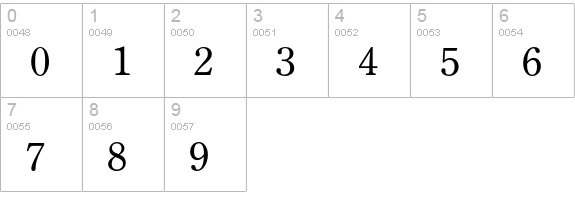
Century Oldstyle Font Details
Century Oldstyle is a classic and elegant font with a timeless appeal. Its soft serifs and balanced proportions make it ideal for a wide range of design projects, from elegant invitations to sophisticated branding. The versatility of Century Oldstyle allows it to work equally well in both print and digital formats, making it a valuable addition to any designer's toolkit. Best of all, Century Oldstyle is available for free download at FontsMarket.com. This means that you can easily access this beautiful font and incorporate it into your designs without any cost. Don't miss out on this opportunity to enhance your projects with the timeless beauty of Century Oldstyle font.